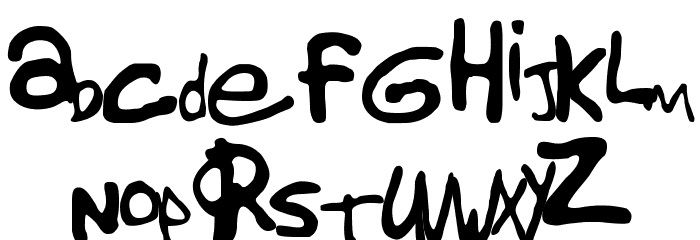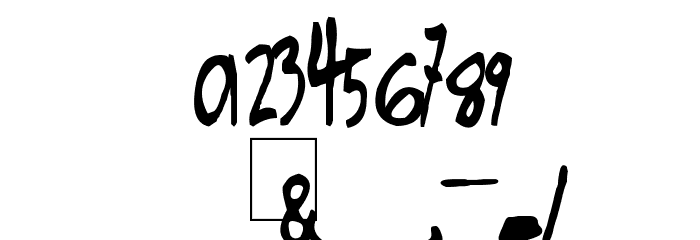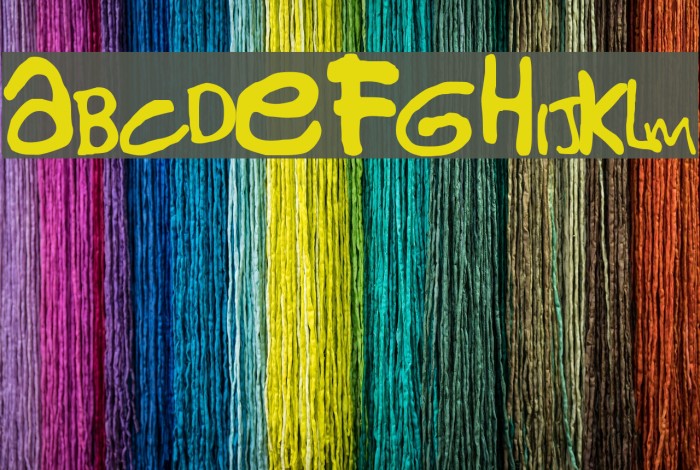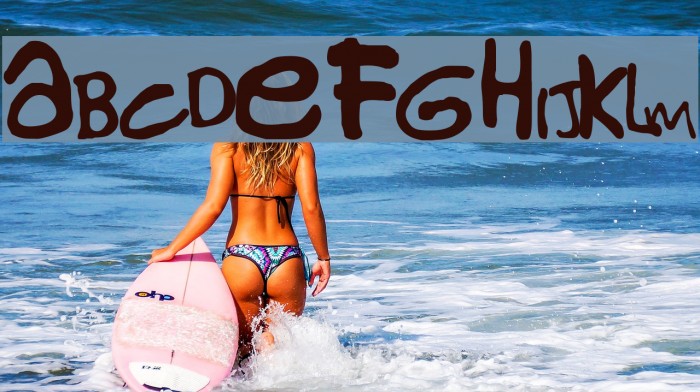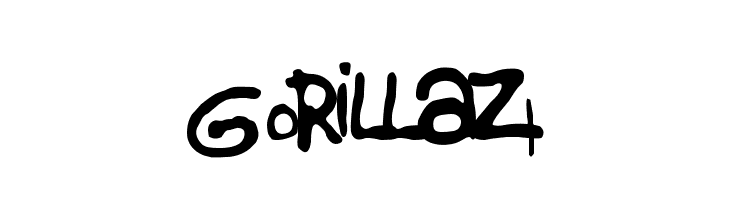
Gorillaz1 Font
This font features a playful and artistic style with a hand-drawn appearance. The characters are bold and irregular, giving a sense of spontaneity and creativity. The uppercase letters are particularly distinctive, with exaggerated curves and varying stroke thicknesses. Lowercase letters maintain a similar whimsical style, while numbers and special characters complement the overall look. The font's unique design makes it suitable for projects that require a fun and informal touch.
A playful, hand-drawn font with bold, irregular characters.
- Proposed Projects: Ideal for album covers, posters, children's books, and creative branding projects.
- Overall Style: Artistic, Playful